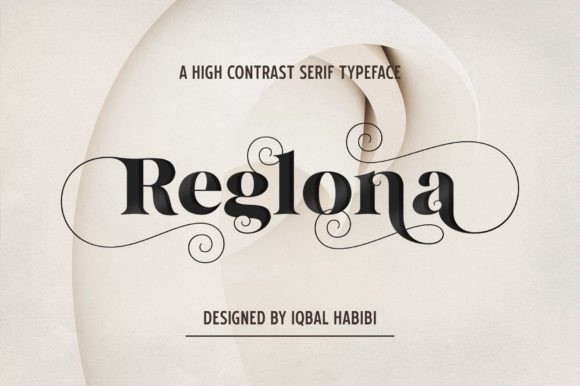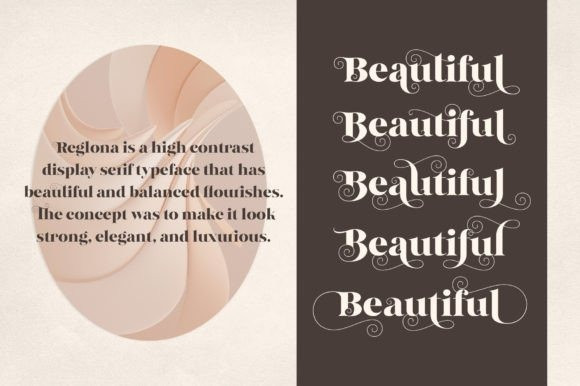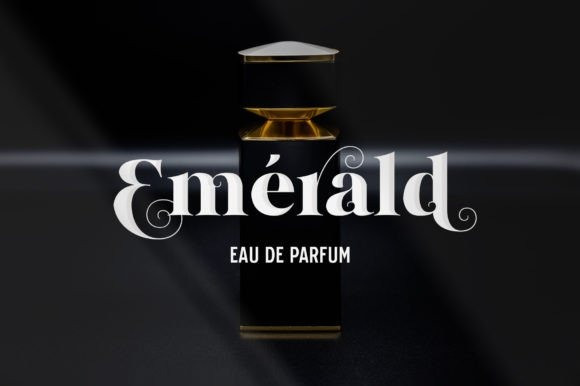
Reglona Font
Reglona is a high-contrast display serif typeface that has beautiful and balanced flourishes. The concept was to make it look strong, elegant, and luxurious. Reglona perfectly suited for Headlines, Logotypes, Titles, Packaging Designs, Quotes, and other graphic design projects.